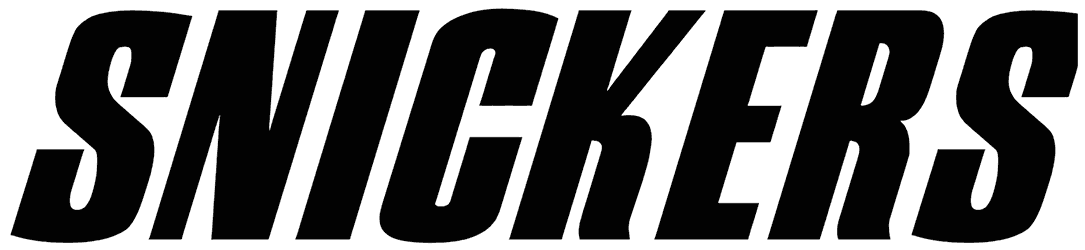
Snickers Font
Add a bold twist to your designs with the Snickers font, inspired by the iconic branding of the world-famous Snickers chocolate bar. This eye-catching typeface delivers a delicious blend of fun and familiarity, perfect for playful packaging, retro logos, or snack-themed graphics. Whether you’re crafting a brand with attitude or adding a pop of nostalgia, Snickers font brings that sweet, recognizable flair. Download it now and give your project the bold bite it craves!
Designed by: Samuel Park